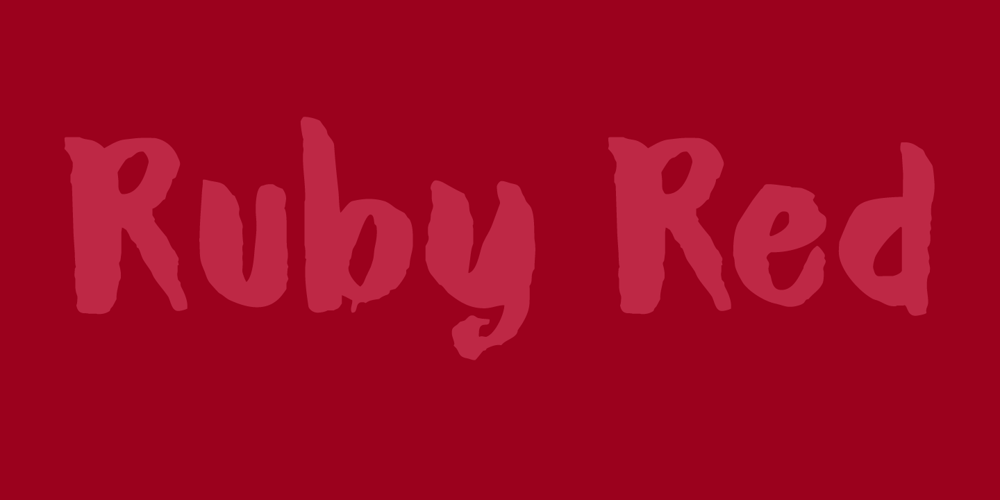
Ruby Red
Ruby Red font
Ruby Red Font Family was designed by David Kerkhoff and published by Hanoded. Ruby Red contains 1 styles and family package options. Ruby Red is a playful font, made with ink and a brush. Ruby Red would look great in ads and packaging. Comes with a treasure trove of diacritics.